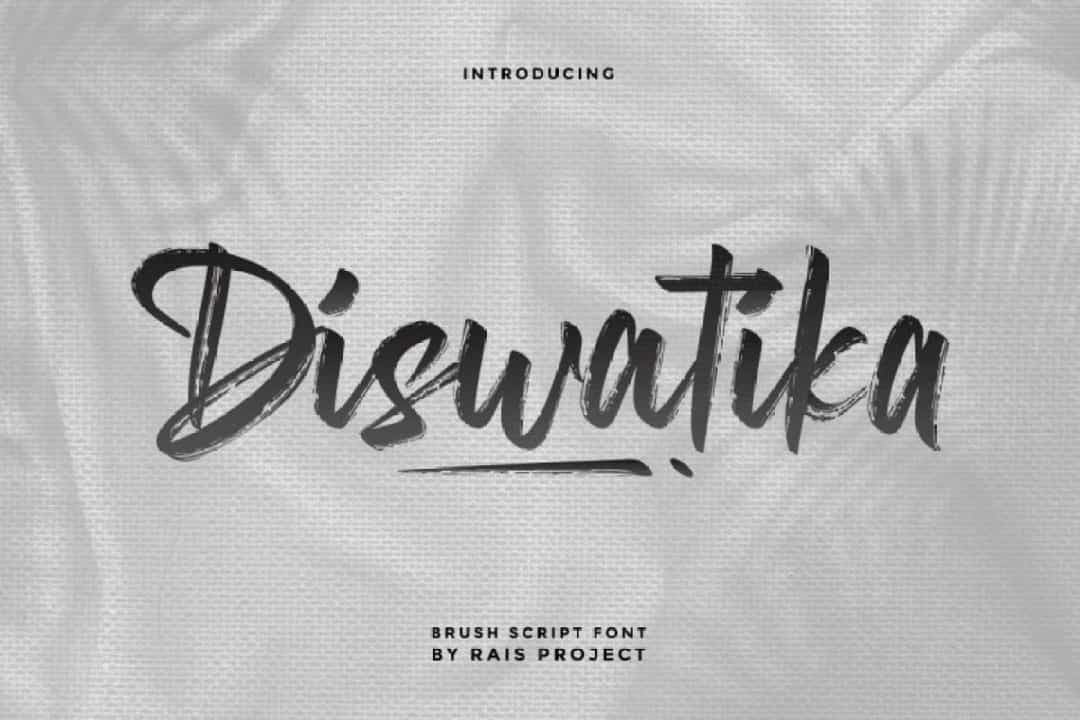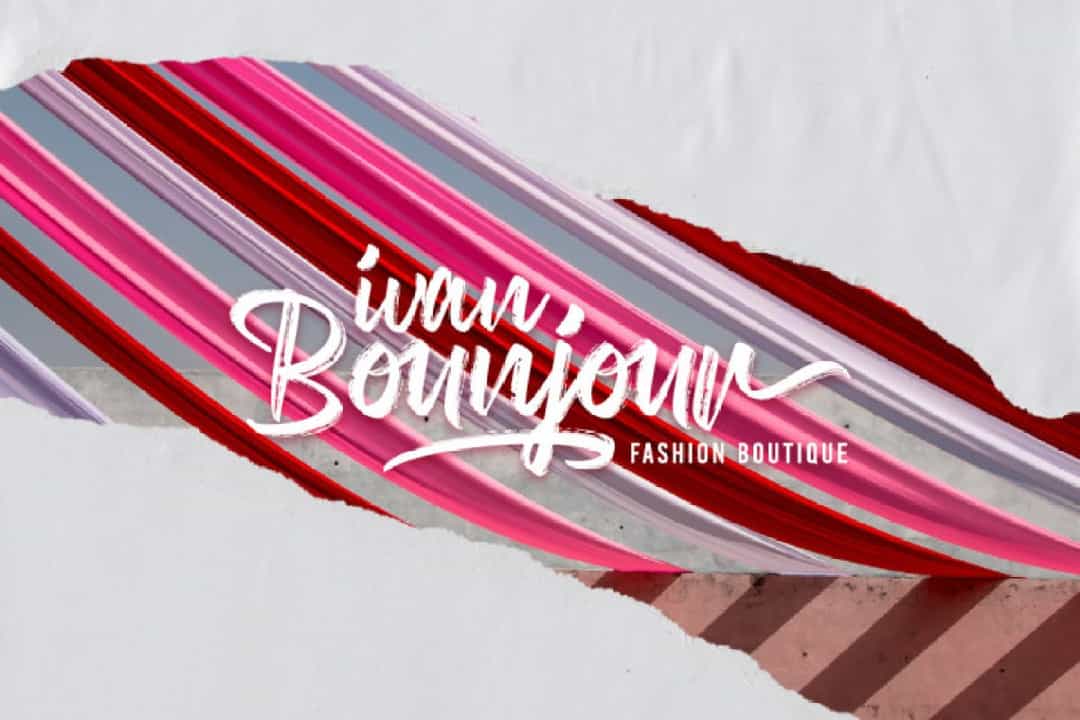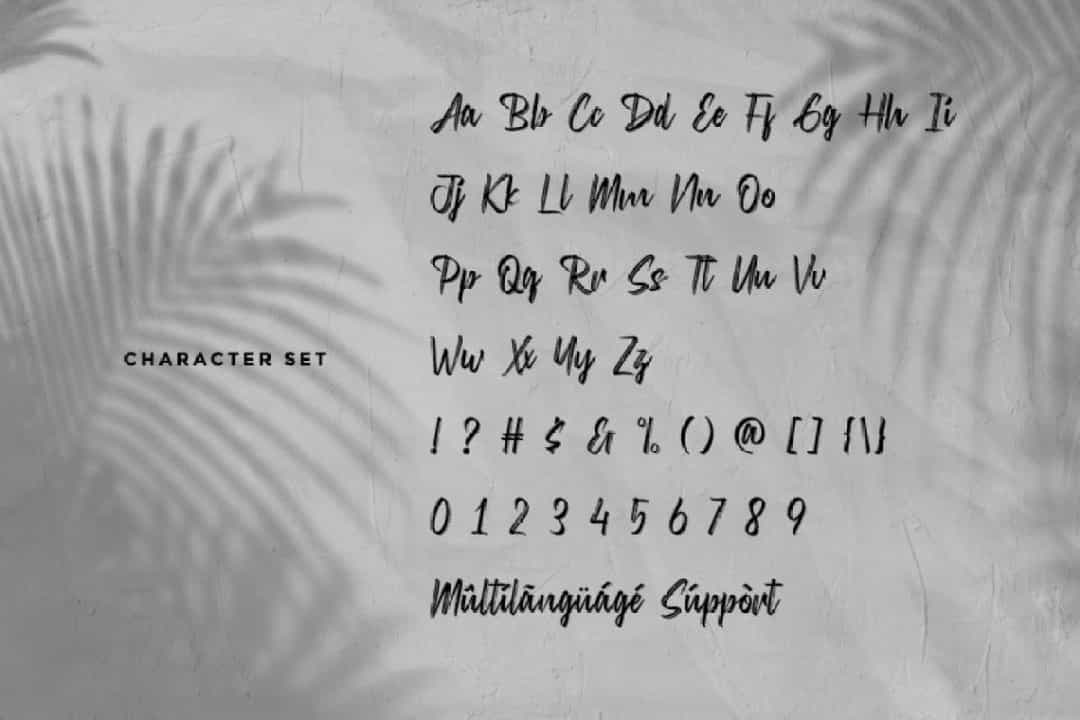
Discover Diswatika Font, part of the Brush collection—a versatile and unique font perfect for adding a personal touch to your projects. Download it for free and enjoy crafting designs with style, from invitations to social media posts. This font is available exclusively for personal use, giving you the freedom to create without limits. Unlock your creativity with Diswatika Font today!
Diswatika Brush Font is handcrafted in remote areas in Bandung and Garut, Indonesia and can be utilized in any projects that need unique designs such as headlines, branding for special events, magazines, invitations, signage, social media posts, labels and many more especially for vintage horror movie magazine, game music video, racing, sports and many more.